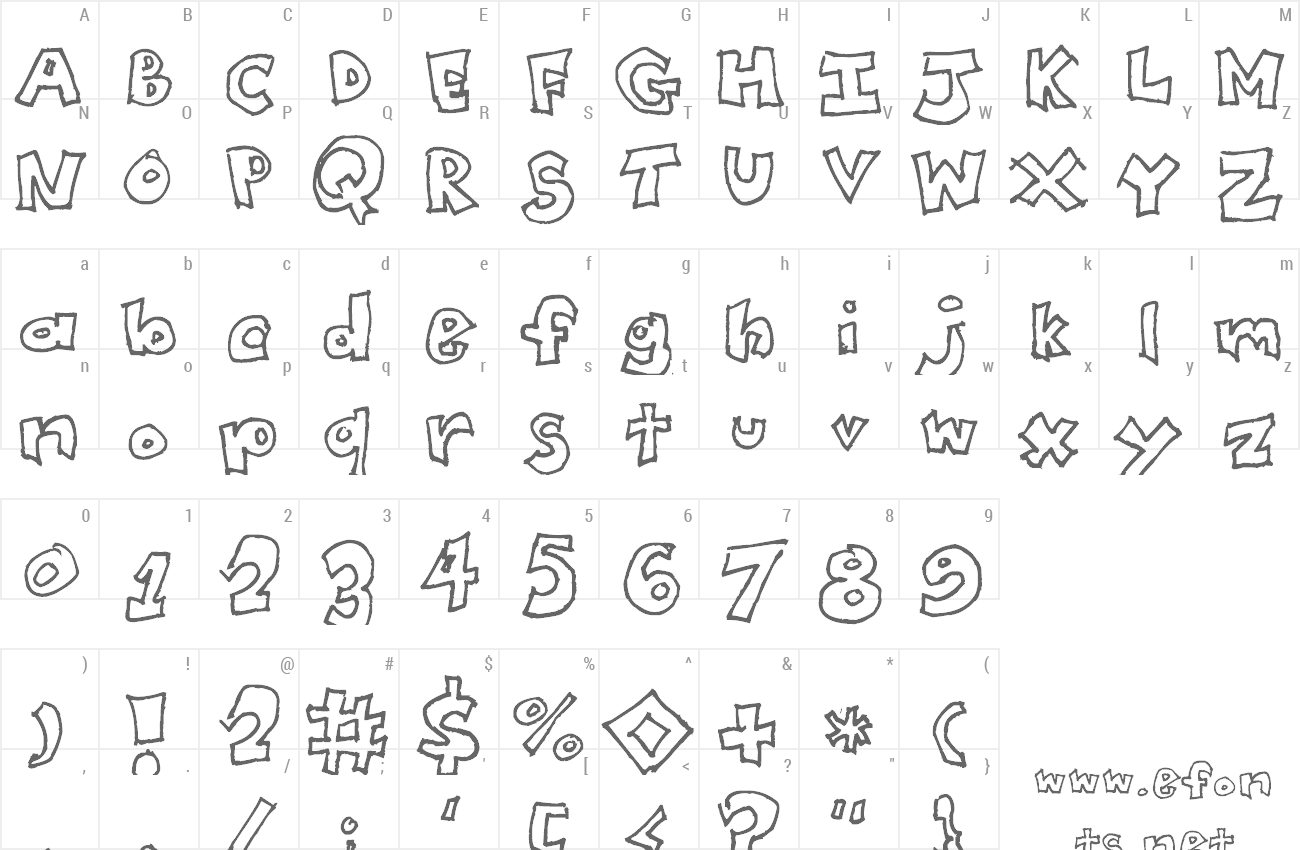
| Font name: | College RA |
| Author: | FontPanda |
| Note by FontPanda | |
The handwriting of a former College RA, this font will give your sign authenticity and make it stand out from the rest. Hope you like it. www.FontPanda.com will make your handwriting into a font for free! |